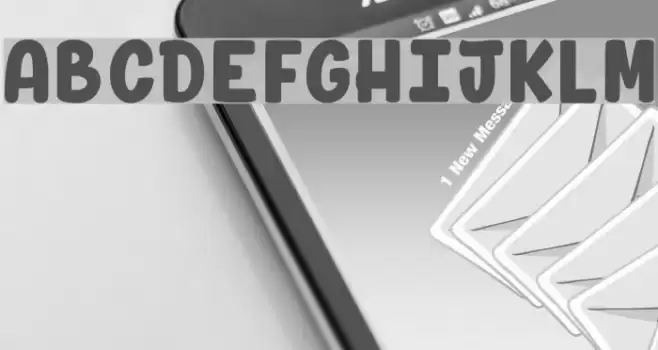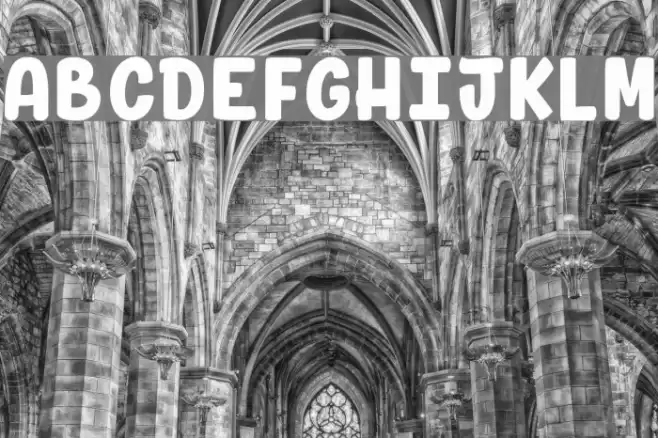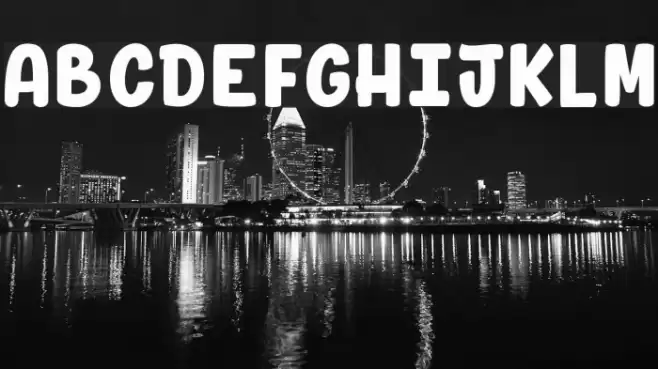
Shitzu&Porko light_PersonalUseOnly Font
Shitzu&Porko light_PersonalUseOnly Description
This playful and bold font features rounded, thick strokes that give it a friendly and approachable appearance. The characters are slightly condensed, with a consistent stroke width that maintains a uniform look across both uppercase and lowercase letters. The font's whimsical style is emphasized by its rounded edges and smooth curves, making it ideal for projects that require a fun and informal touch. The numerals and special characters are designed to match the overall playful aesthetic, ensuring a cohesive look throughout any text. This font is perfect for creative projects where a lighthearted and engaging tone is desired.
A playful, bold font with rounded, thick strokes and a friendly appearance from Kids fonts.
- Proposed Projects: Ideal for children's books, playful branding, party invitations, and casual social media graphics.
- Overall Style: Playful, Fun